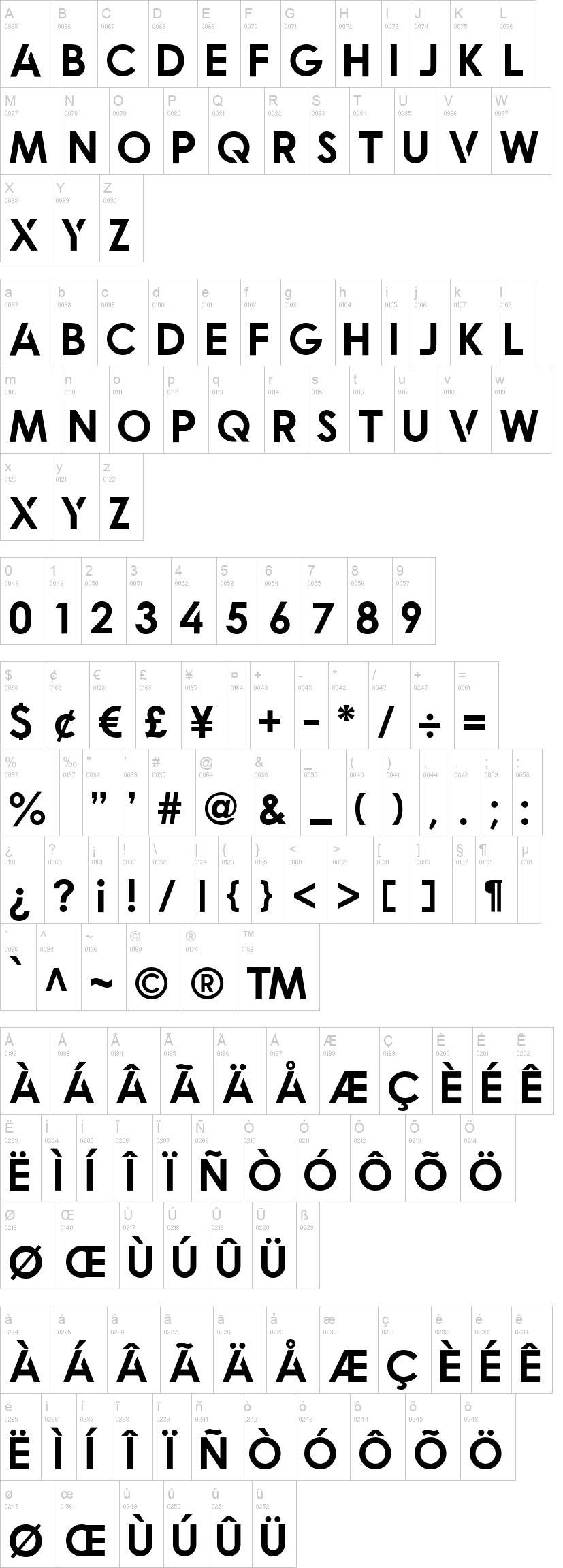
Note of the authorWe introduce Qualy font with a modern and clean unique form. This font has a feature that you can get with different font characters (please see the preview https://graphicriver.net/item/qualy/25408468).